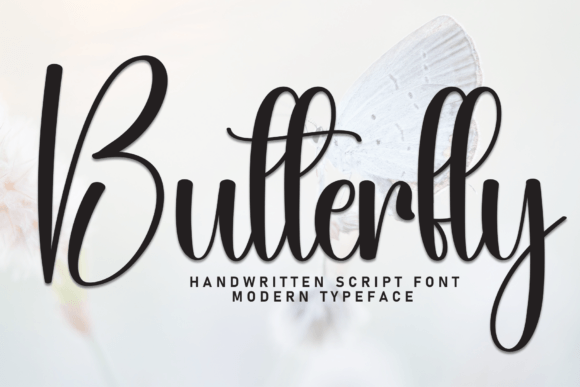
The Magic of Butterfly Font: Elevate Your Designs with Elegance and Charm
I’ll never forget the time I was working on a branding project for a luxury wedding planner. I had nailed the color palette and overall aesthetic, but something was missing – the perfect font. I scrolled through countless options, but none seemed to capture the essence of elegance and playfulness I was looking for. That’s when I stumbled upon Butterfly Font, and it instantly transformed my design. In this article, I’ll share my love for this beautiful font, its features, and how to make the most of it in your creative projects.
An Honest Review of Butterfly Font
- 💫 Smooth, flowing lines that exude modern elegance
- 🎨 Versatile and perfect for various design applications, from logos to social media graphics
- 💖 Adds a touch of personality and charm to any project
- ⚠️ Some users may find the font a bit too bold for certain designs
- ⚠️ Limited availability of language support (but great for English-based projects)
A Practical Guide to Using Butterfly Font
- Experiment with OpenType features, such as ligatures and stylistic alternates, to add more flair to your text
Butterfly Font was created by a talented type designer who wanted to craft a font that embodied both elegance and playfulness. Inspired by the delicate wings of butterflies, the designer aimed to create a font that would add a touch of whimsy and charm to any design. With its smooth lines and modern feel, Butterfly Font has become a favorite among designers and crafters alike.
Q: Is Butterfly Font suitable for body text?
A: While Butterfly Font is beautiful, it’s primarily designed for headlines and titles. For body text, you may want to choose a more legible font.